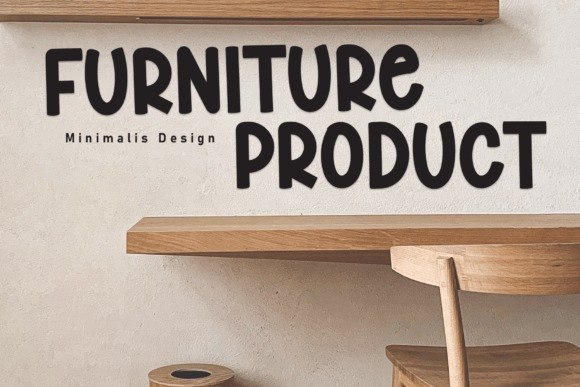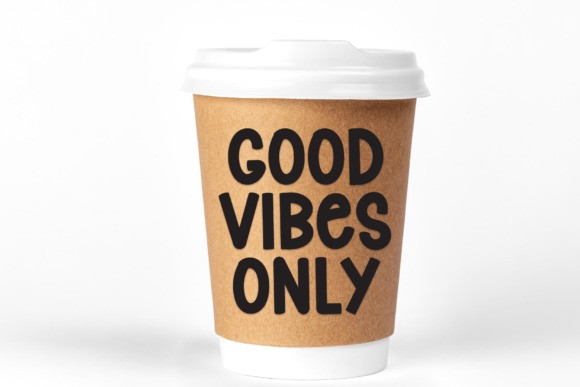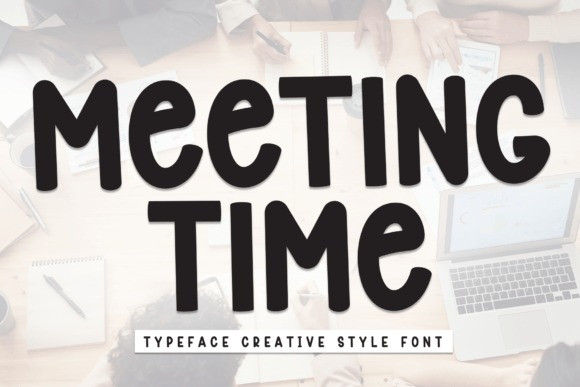
Meeting Time Font
Meeting Time Font is a casual handwritten font that effortlessly blends informality with readability. Crafted with a relaxed charm, each character flows naturally, adding a friendly touch to your projects. Perfect for conveying a laid-back yet approachable vibe, Meeting Time infuses your designs with a welcoming handwritten appeal.